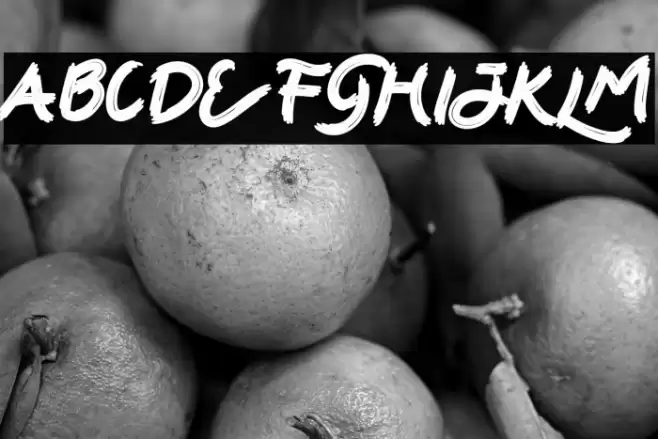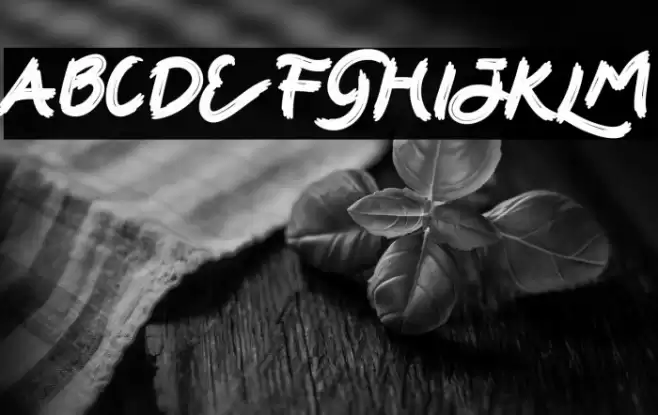
Halloween Fridays Font
Halloween Fridays Description
This font features a bold, expressive style with a brush-like texture that gives it a dynamic and energetic appearance. The letters are slightly slanted, adding a sense of motion and fluidity. The strokes are thick and uneven, creating a hand-painted effect that is both artistic and informal. The uppercase and lowercase letters maintain a consistent style, while the numerals and special characters blend seamlessly with the overall design. This font exudes a playful and creative vibe, making it ideal for projects that require a touch of personality and flair.
A bold, brush-style font with dynamic, hand-painted strokes from Uncategorized fonts.
• Font: Halloween Fridays
• Proposed Projects: Ideal for posters, event flyers, branding, and creative social media graphics.
• Bold: Yes
• Italic: No
• Weight: Bold
• Width: Normal
• Character Spacing: Normal
• Contrast: High
• Overall Style: Decorative
• Use Case: Headlines, Logos